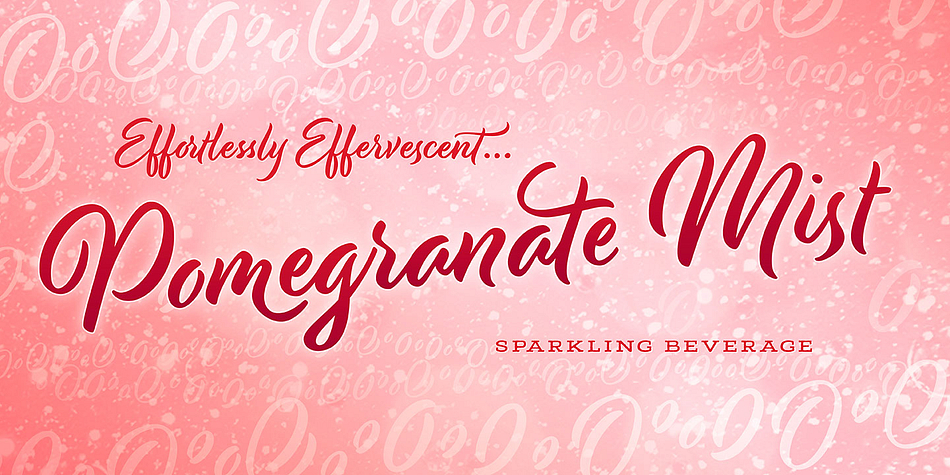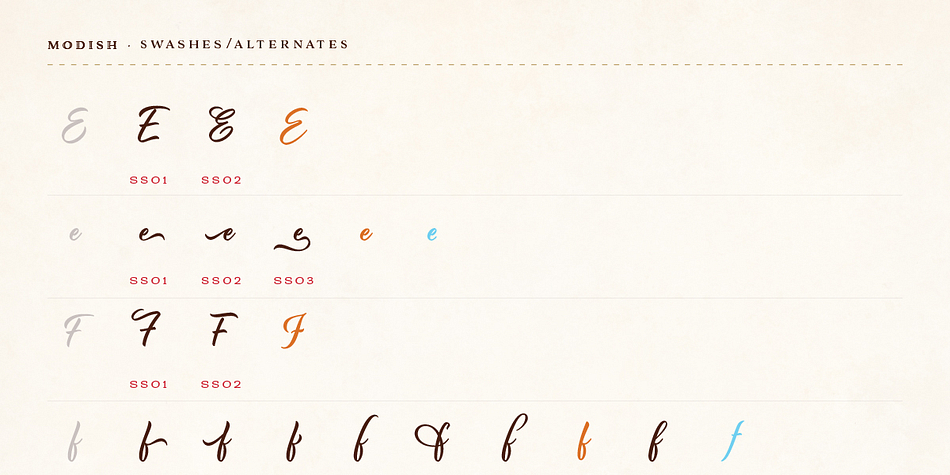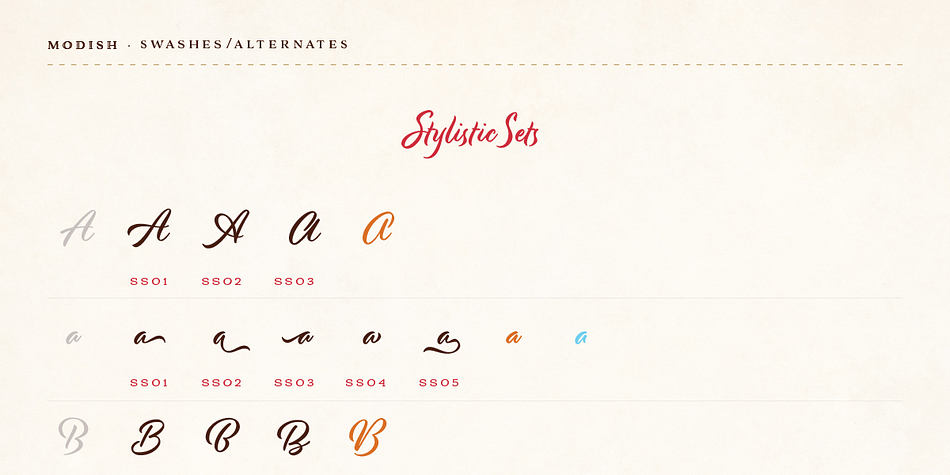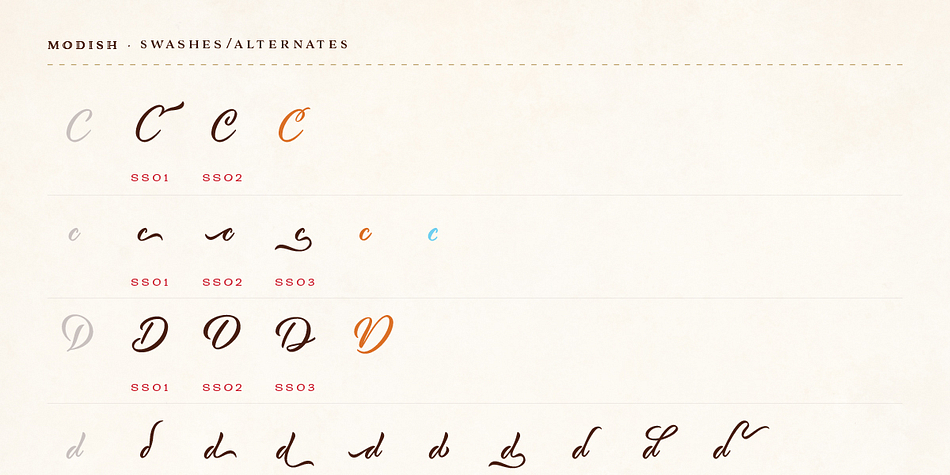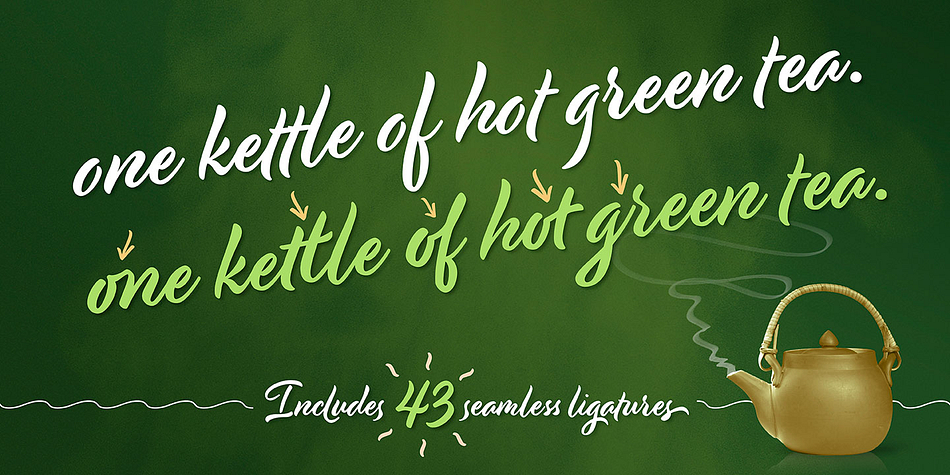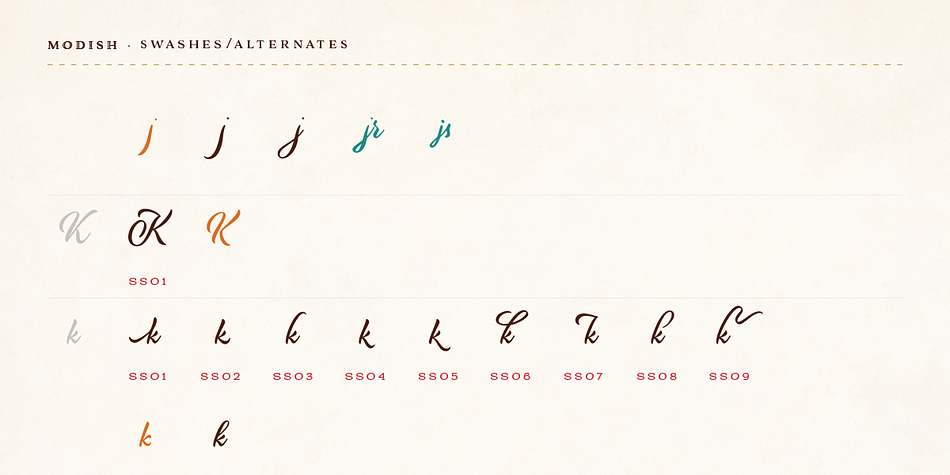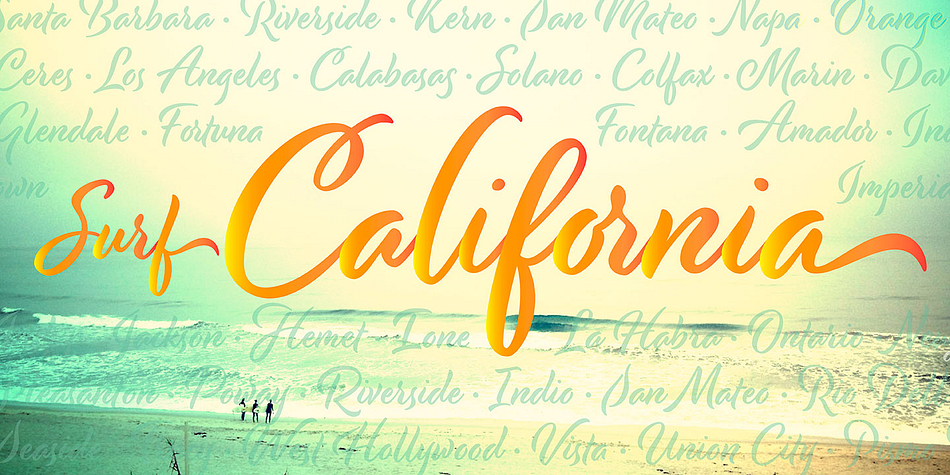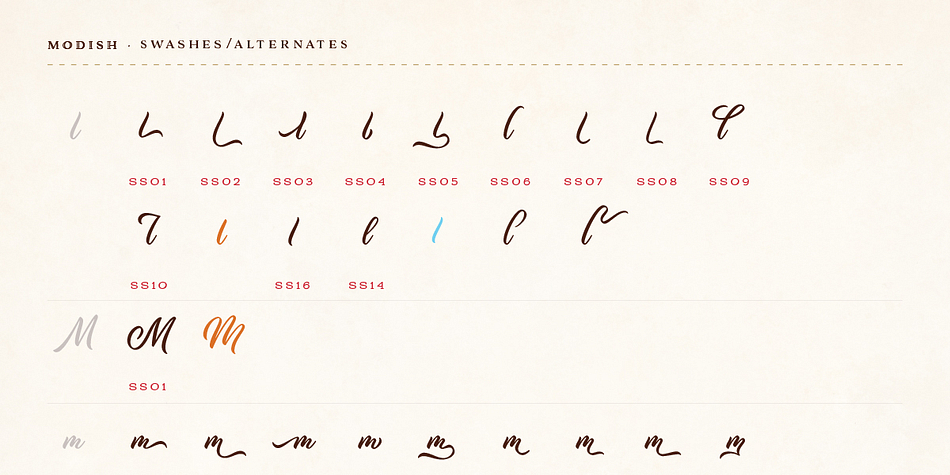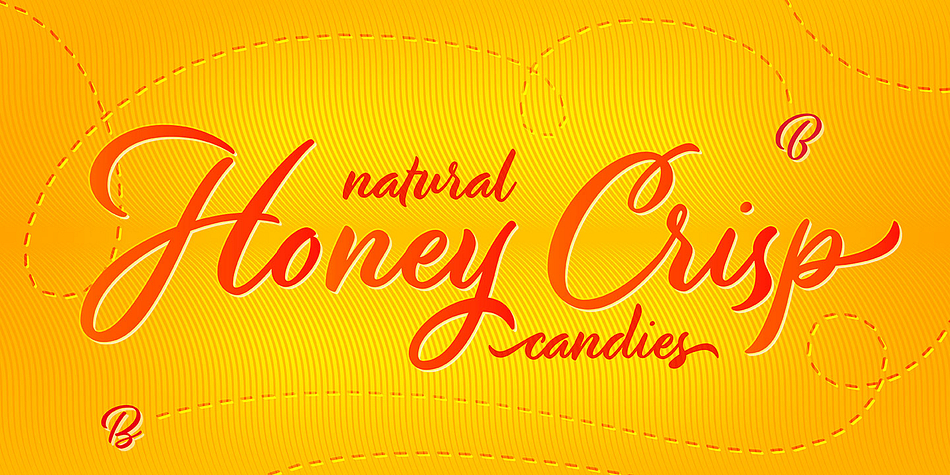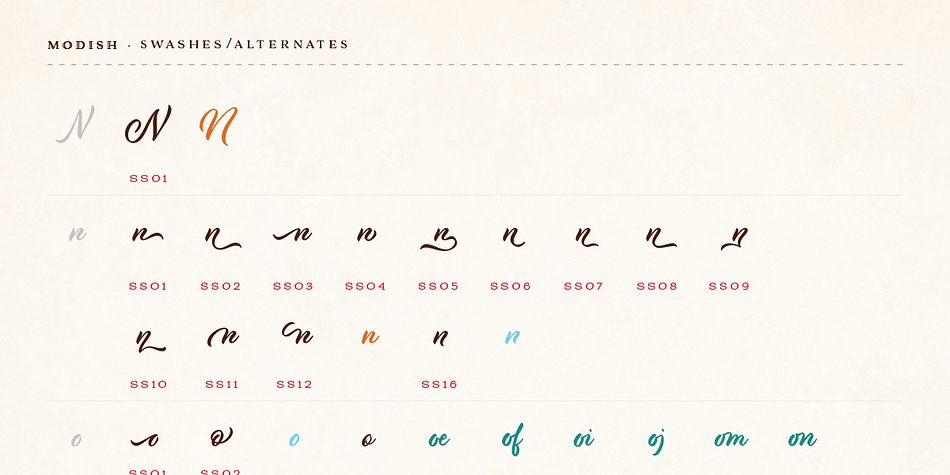
Designed by Laura Worthington, Modish is a brush script font published by Laura Worthington.
Inky but neat. Flowing but controlled. Modish perfectly balances two predominant aesthetics of fashion and lifestyle: the casually cool hand-drawn look, and the pixel-perfect slickness of digital design. This synthesis might be due partly to how it was created: it’s Laura’s first typeface that began life on an iPad, drawn with Apple Pencil. The result is a face that’s ideal for on-trend designs for food, clothing, cosmetics, retail packaging, or menus. As usual, it includes a plethora of 350 swashes and alternates, plus 43 ligatures.